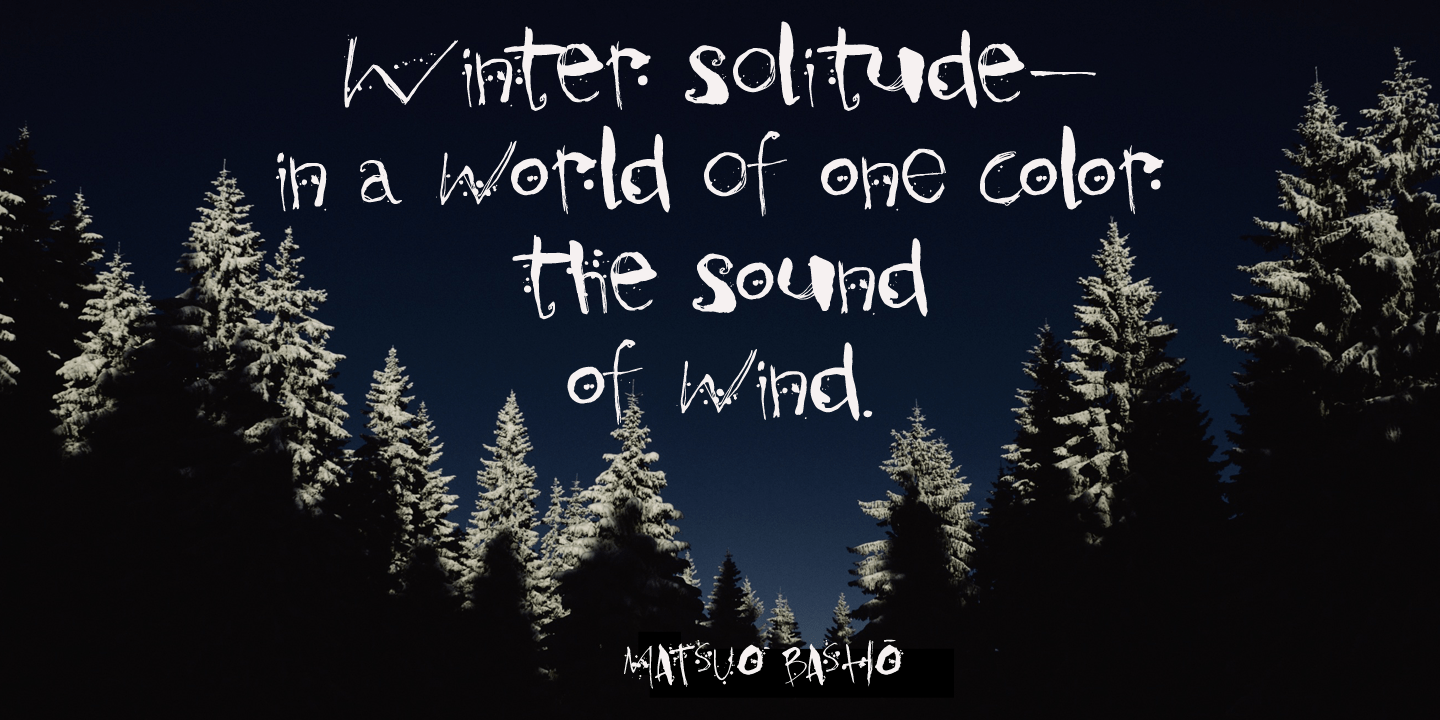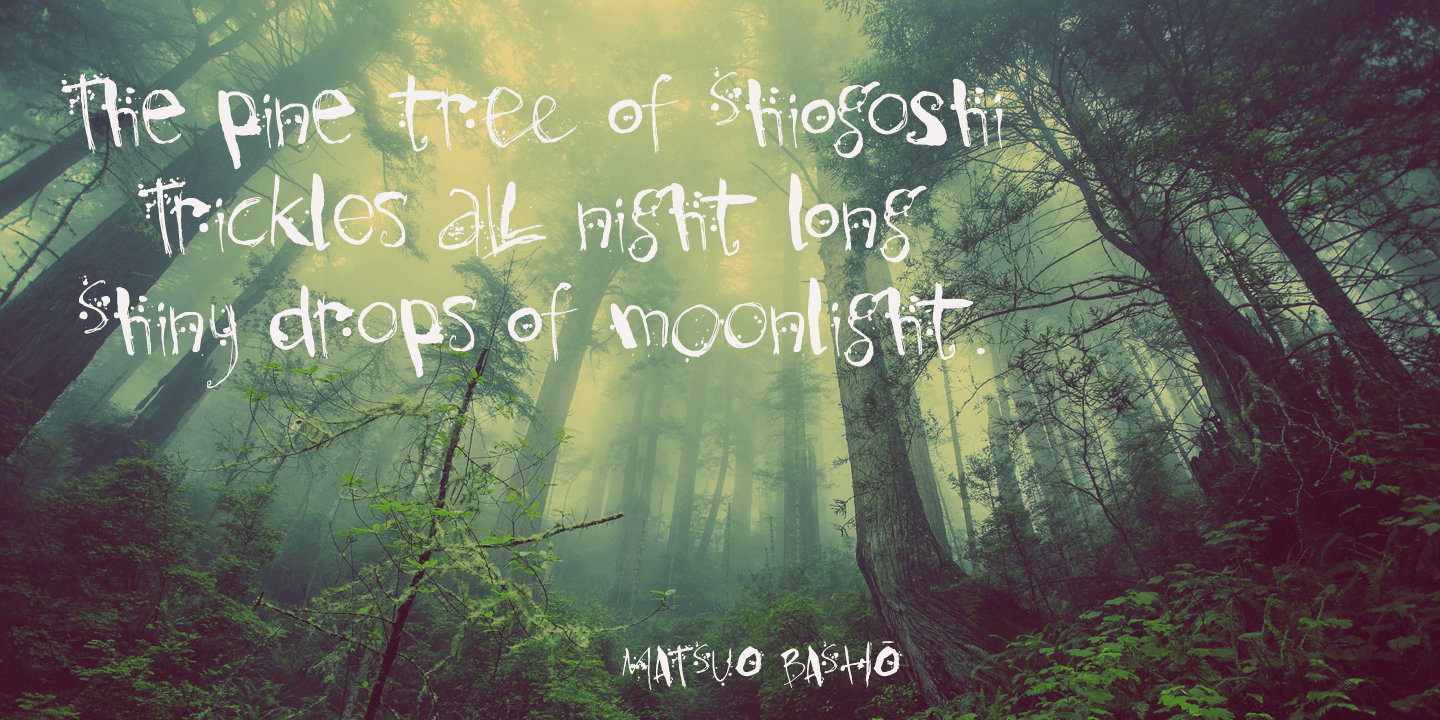
Kodama are spirits in Japanese folklore that inhabit trees. The term is also used for trees in which a kodama houses. Kodama Forest is a rough, spikey and inky font, in the style of the great Ralph Steadman. Kodama Forest comes with a bunch of alternates,…